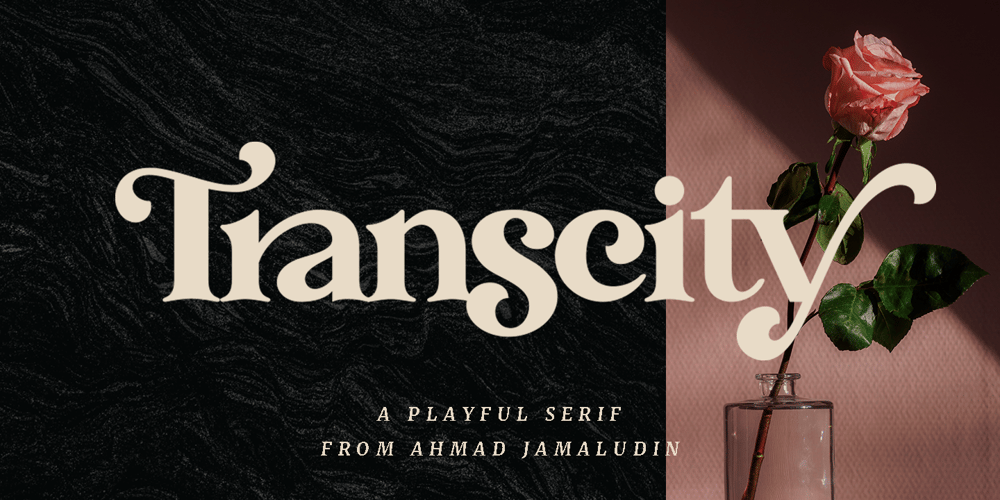
Transcity Font Family was designed by Ahmad Jamaludin and published by Ahmad Jamaludin. Transcity contains 1 styles and family package options. Say hello to my serif font, Transcity!Transcity is a Bold Playful Elegant Modern vintage font with beautiful ligatures, tons of special alternative glyphs, ornament and multilingual support. It’s a very versatile font that works great in large and small sizes.This beautiful font perfect for branding projects, logo design, Clothing Branding, product packaging, magazine headers, or simply as a stylish text overlay to any background image.Features: More than 100 beautiful swashes in this font Accessible in the Adobe Illustrator, Adobe Photoshop, Adobe InDesign, even work on Microsoft Word. PUA Encoded Characters Fully accessible without additional design software. Multilingual Support:à á â ã ä å æ ç è é ê ë ì í î ï ñ ò ó ô õ ö ø ù ú û ü ý ÿ š fl fi ž œ ı ç ø š ž æ œ À Á Â Ã Ä Å Æ È É Ê Ë Ì Í Î Ï Ñ Ò Ó Ô Õ Ö Ø Œ Ù Ú Û Ü Ý Ÿ Š Š ŽŁ Ð Ç